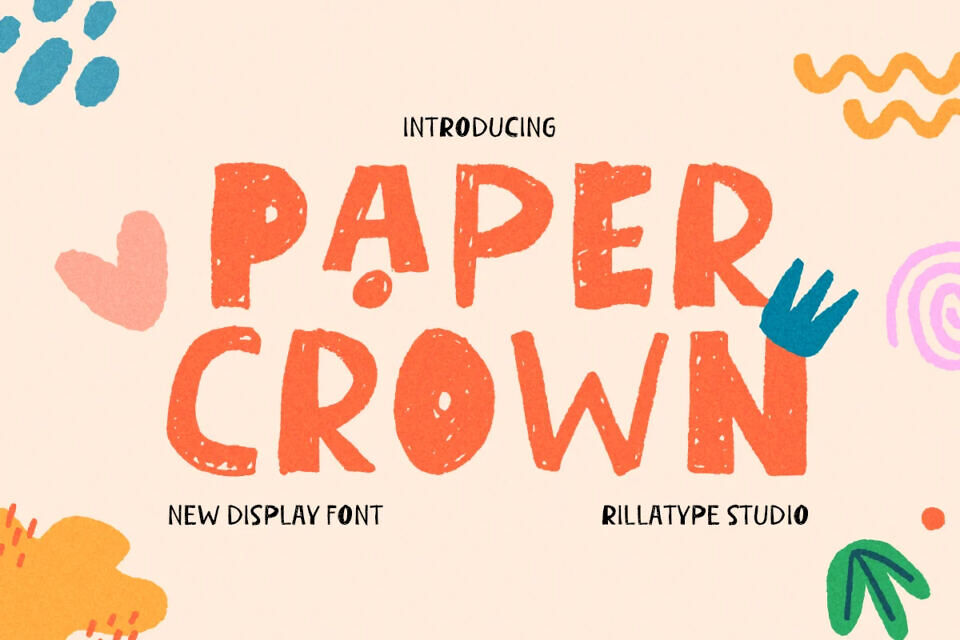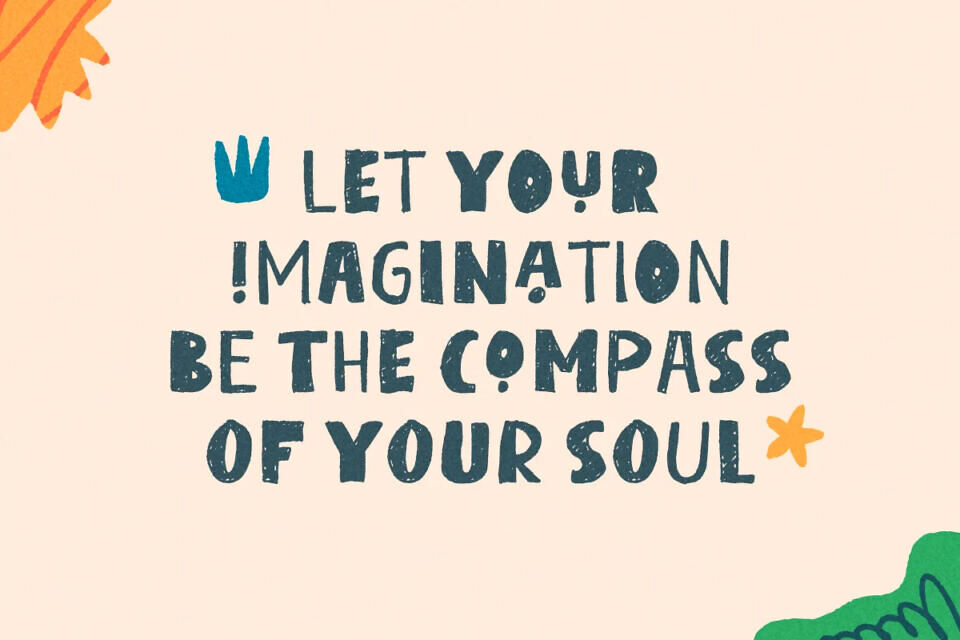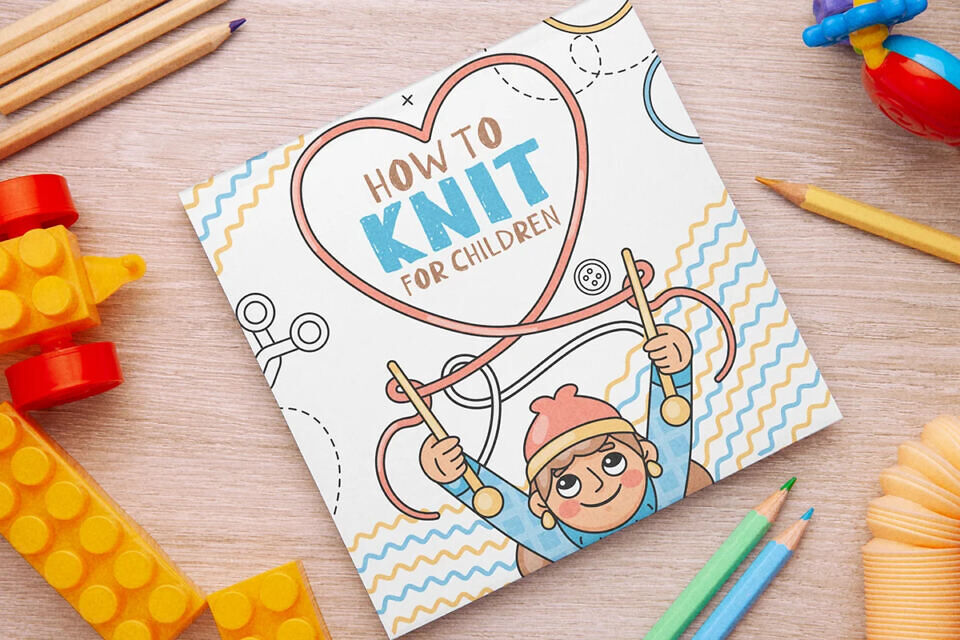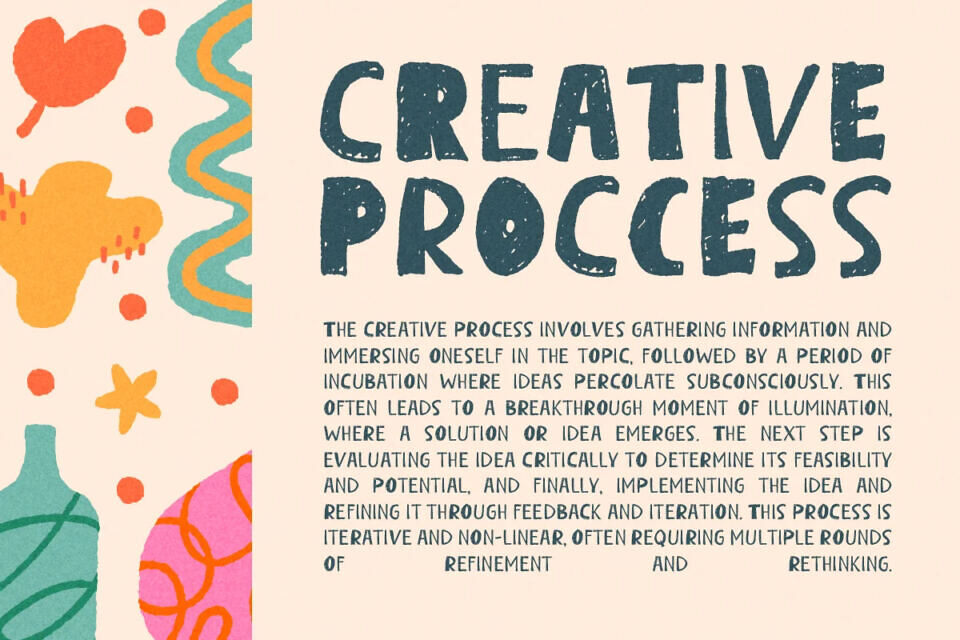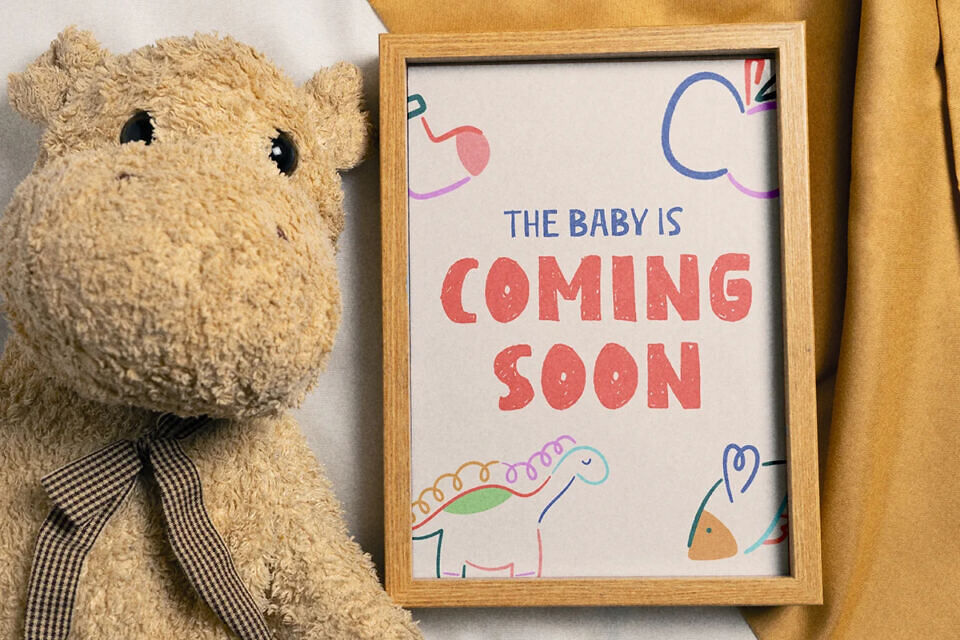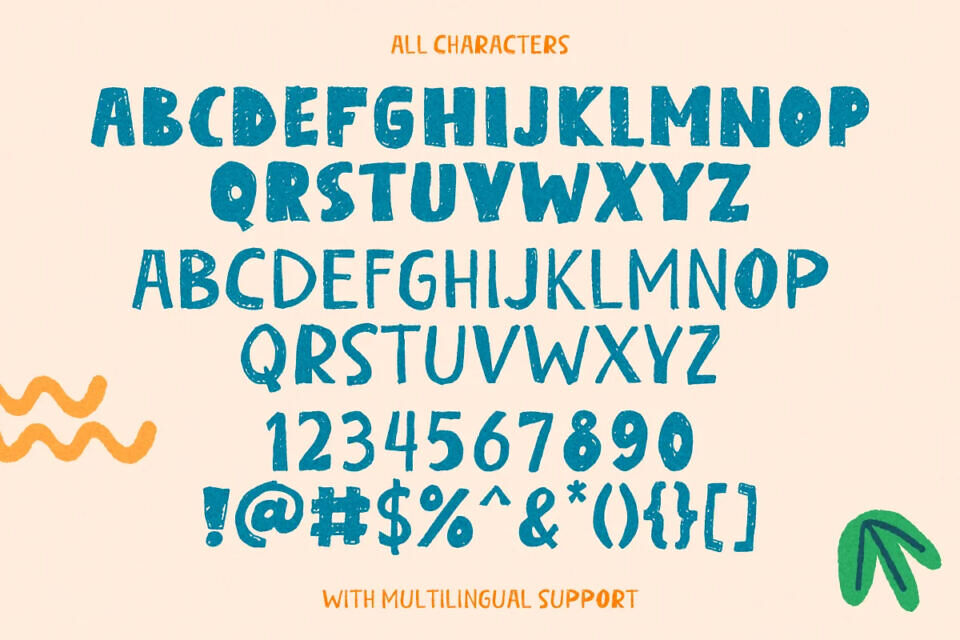
Introducing Paper Crown, a hand-drawn organic font that brings a whimsical and playful touch to your designs. This unique font features bold uppercase letters paired with delicate, thin lowercase letters, allowing you to mix and match for creative and engaging typography.
Perfect for children’s book titles, playful posters, and charming invitations, Paper Crown captures the essence of handcrafted artistry with its natural, organic feel. Its versatile style adds a touch of magic to any project, making it an ideal choice for anyone looking to infuse their work with a sense of wonder and creativity. Elevate your designs with the delightful charm of Paper Crown.